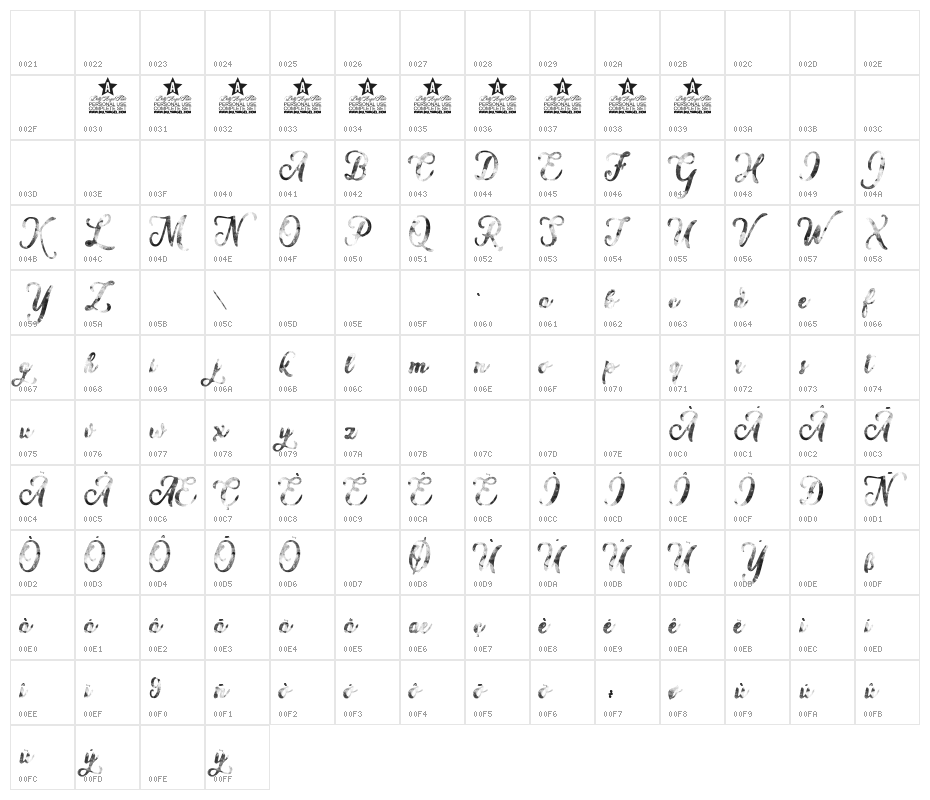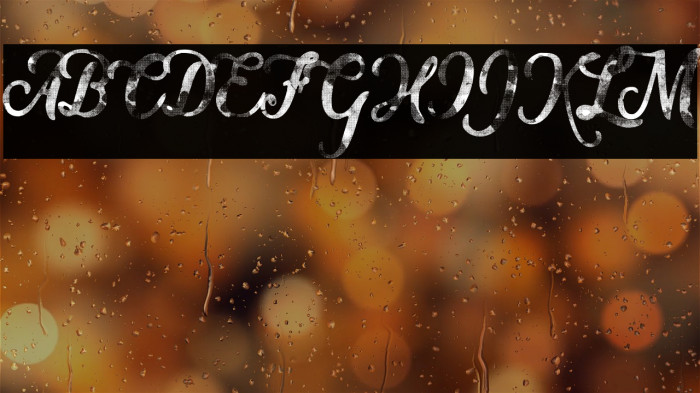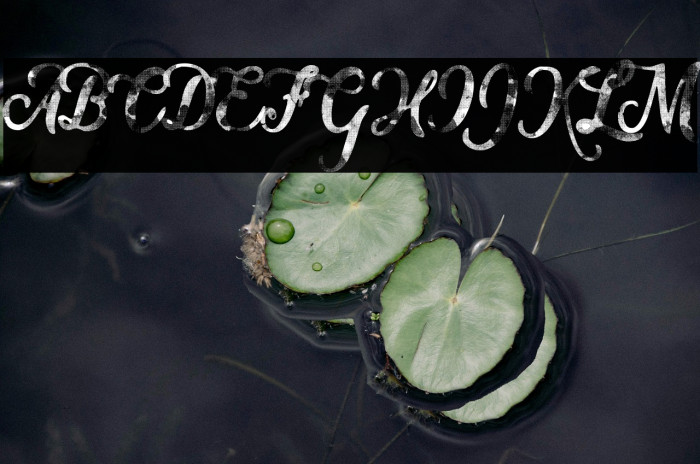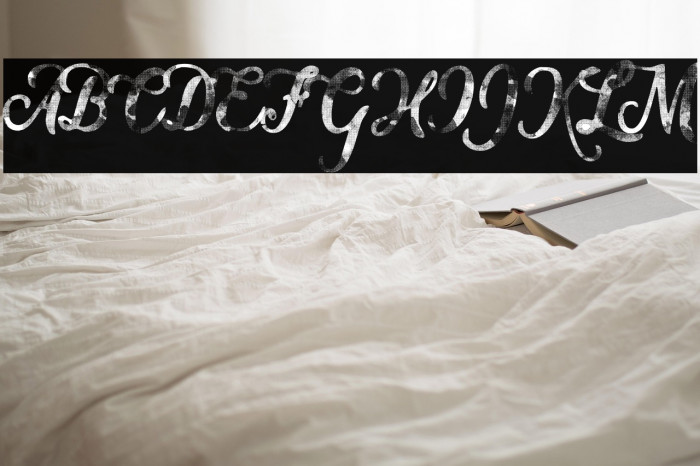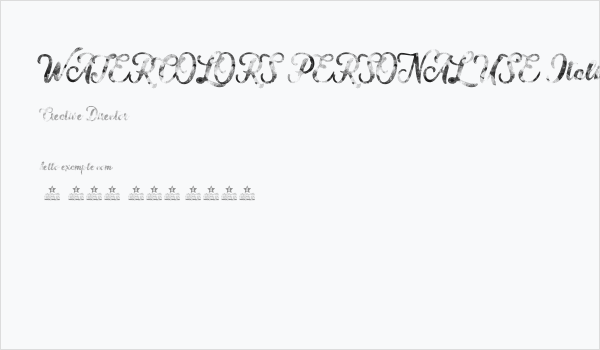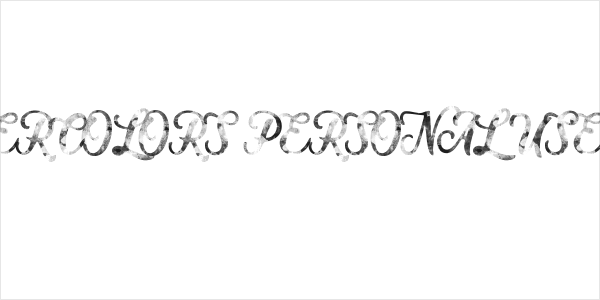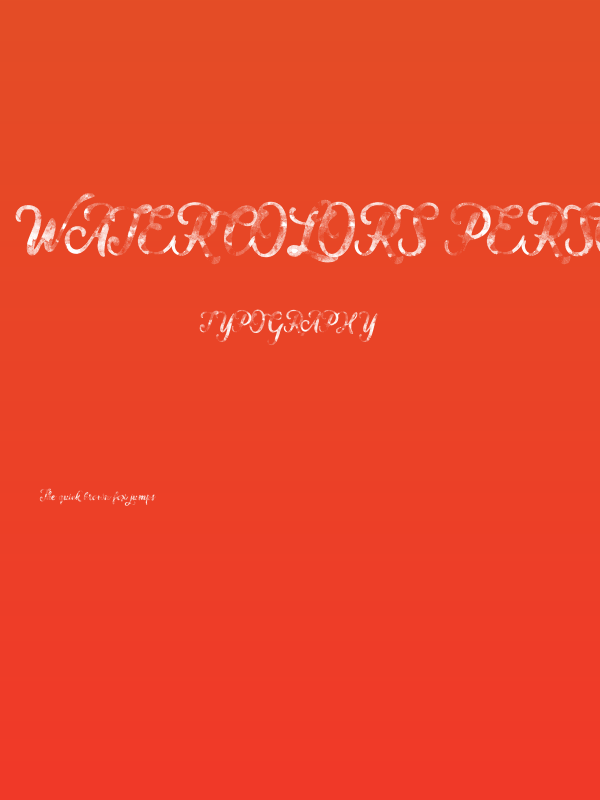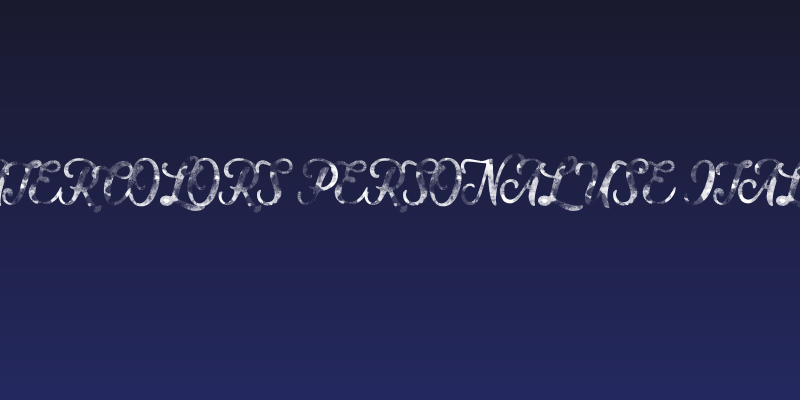
WATERCOLORS PERSONAL USE Italic Font
WATERCOLORS PERSONAL USE Italic Description
This font features a fluid, artistic style reminiscent of watercolor brush strokes. The letters are elegantly connected, giving it a cursive appearance that flows smoothly across the page. The texture within each character mimics the uneven distribution of watercolor paint, adding a unique, handcrafted feel. The uppercase letters are bold and expressive, while the lowercase letters maintain a consistent flow, enhancing readability. The font's organic and artistic nature makes it suitable for creative projects that require a personal touch.